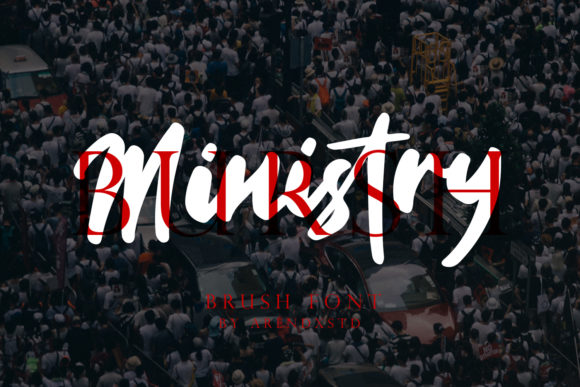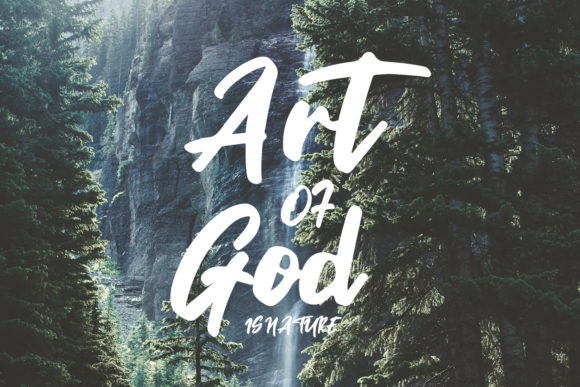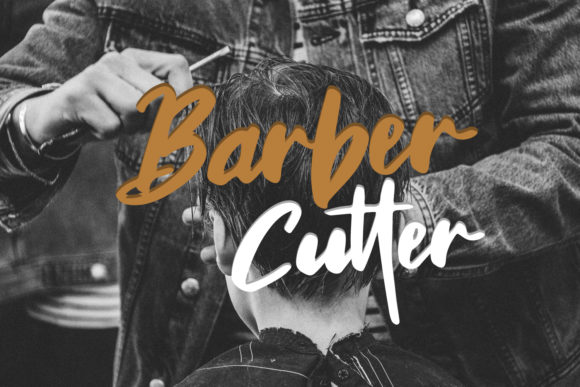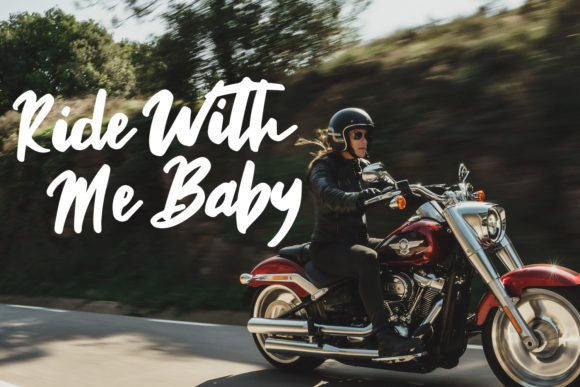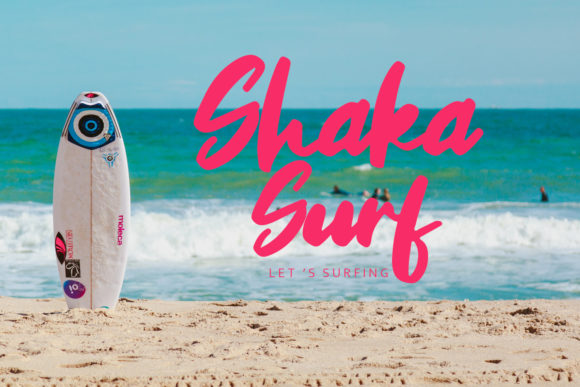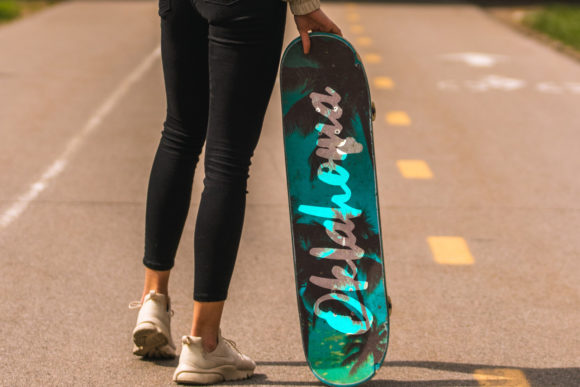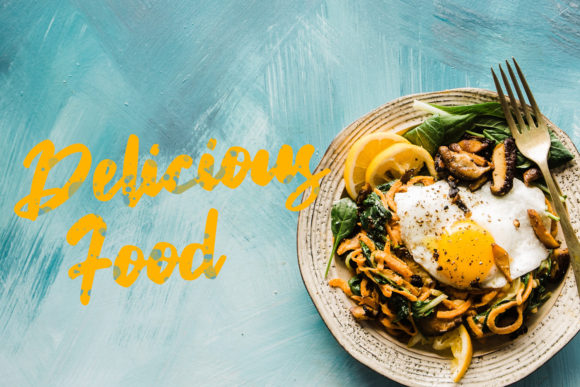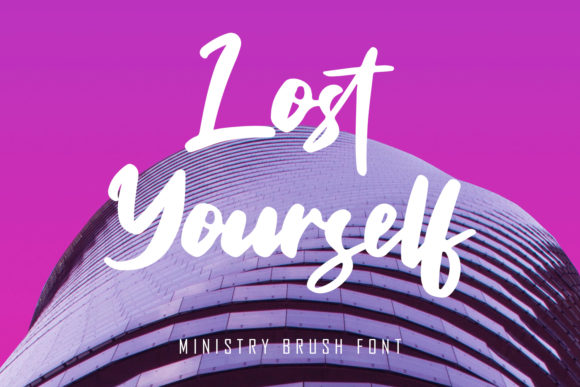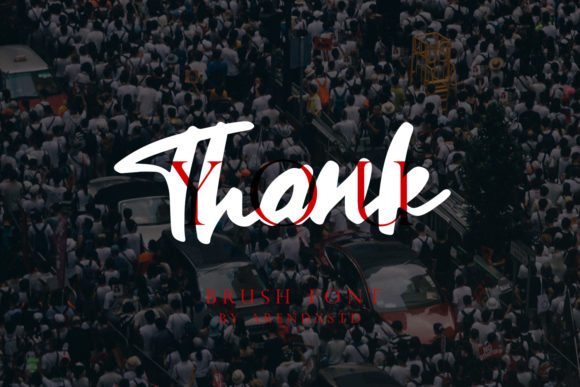
Ministry Font
About Ministry Font
Ministry is a bold and stylish handwritten font with a cool feel. It will turn any design idea into a true standout!